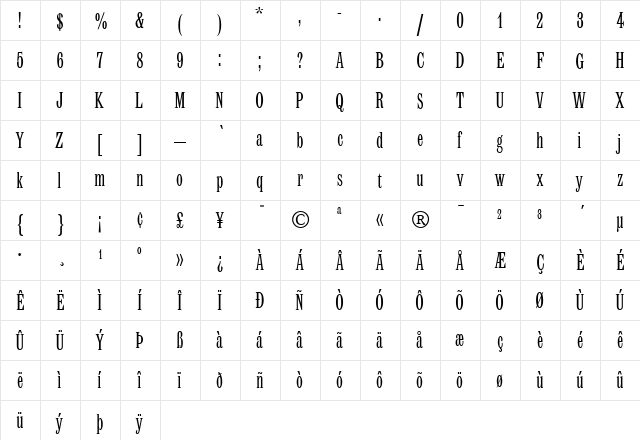
LatinMT-Condensed Roman
Design Context for LatinMT-Condensed Typeface
LatinMT-Condensed is a composed and adaptable typeface that performs quietly and consistently across a wide range of design contexts. Its narrow stance lets it pack a punch even in space-constrained designs.
Pro Tip: Use LatinMT-Condensed in both headline and body roles to test its range before committing to a single application.